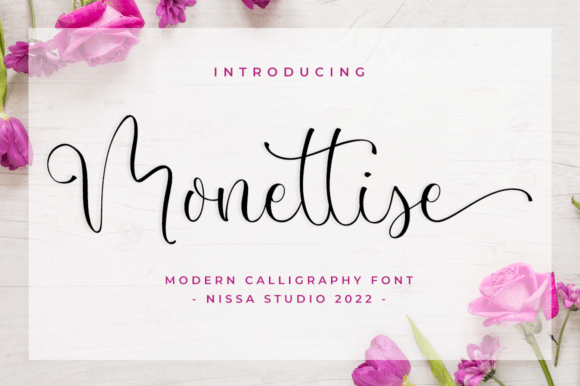
Unleash the Timeless Elegance of Monettise: A Script Font Symphony for Your Web Creations.
In the realm of web design, where visual aesthetics and user engagement intertwine, the choice of font holds immense significance. Introducing Monettise, a script font masterpiece that encapsulates grace, sophistication, and timeless appeal. Its elegant curves and delicate strokes evoke a sense of refinement, transforming your digital creations into works of art.
Experience the Alluring Charm of Monettise:
- Indulge in the beauty of Monettise, a script font that radiates elegance and class, leaving an unforgettable impression on your visitors.
- Its meticulously crafted glyphs and swashes dance harmoniously on the screen, creating a visual symphony that captivates and enchants.
- Monettise's flowing lines and graceful shapes evoke a sense of artistry, adding a touch of sophistication to your web designs.
Unleash Your Creativity with Monettise:
- Let your imagination run wild as you explore the endless possibilities of Monettise. Its versatility knows no bounds, making it the perfect choice for a wide range of web design projects.
- From elegant wedding invitations to sophisticated branding materials, Monettise adds a touch of timeless charm to every creation.
- Its PUA encoding grants you effortless access to a world of glyphs and swashes, empowering you to unleash your creativity like never before.
Embrace the Power of Monettise:
- Elevate your web designs to new heights with Monettise, the ultimate choice for discerning designers. Its exquisite beauty and versatility will transform your projects into masterpieces.
- Experience the sheer joy of creating with a font that complements your vision and enhances your designs.
- Let Monettise be your muse, guiding you towards design excellence and leaving a lasting impression on your audience.